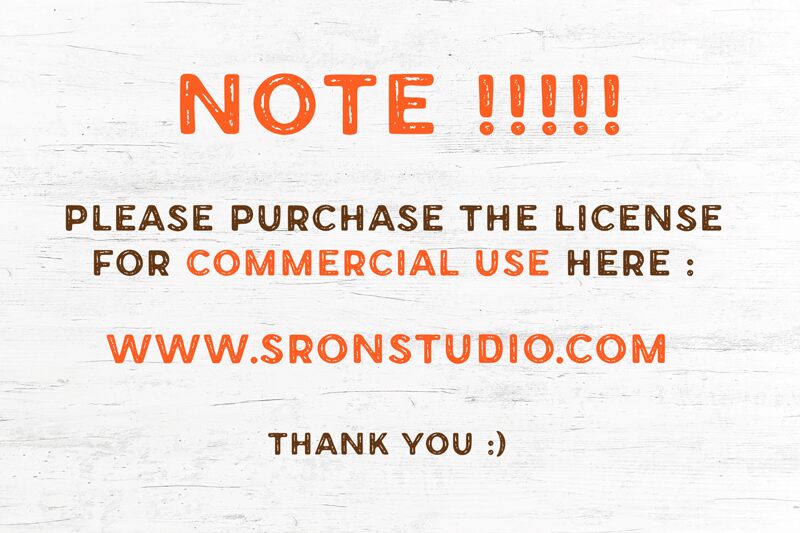
Forest Trophy Textured font by Sronstudio is a nature-inspired eroded display font with a rugged texture and distinctive organic feel. Its imperfect characters have an adventurous vibe and are given identity through quirky details, making this font eye-catching in design. Those looking to create natural-looking artworks would make the right choice using this font.
This free display font can be put to multiple uses like packaging products, presenting magazine headings, designing T-shirt prints, advertisements, posters, branding, company logos, online or offline catalogs as well as brochures or even business cards.
Forest Trophy Textured
Sronstudio
Muhamad Yusron Billah